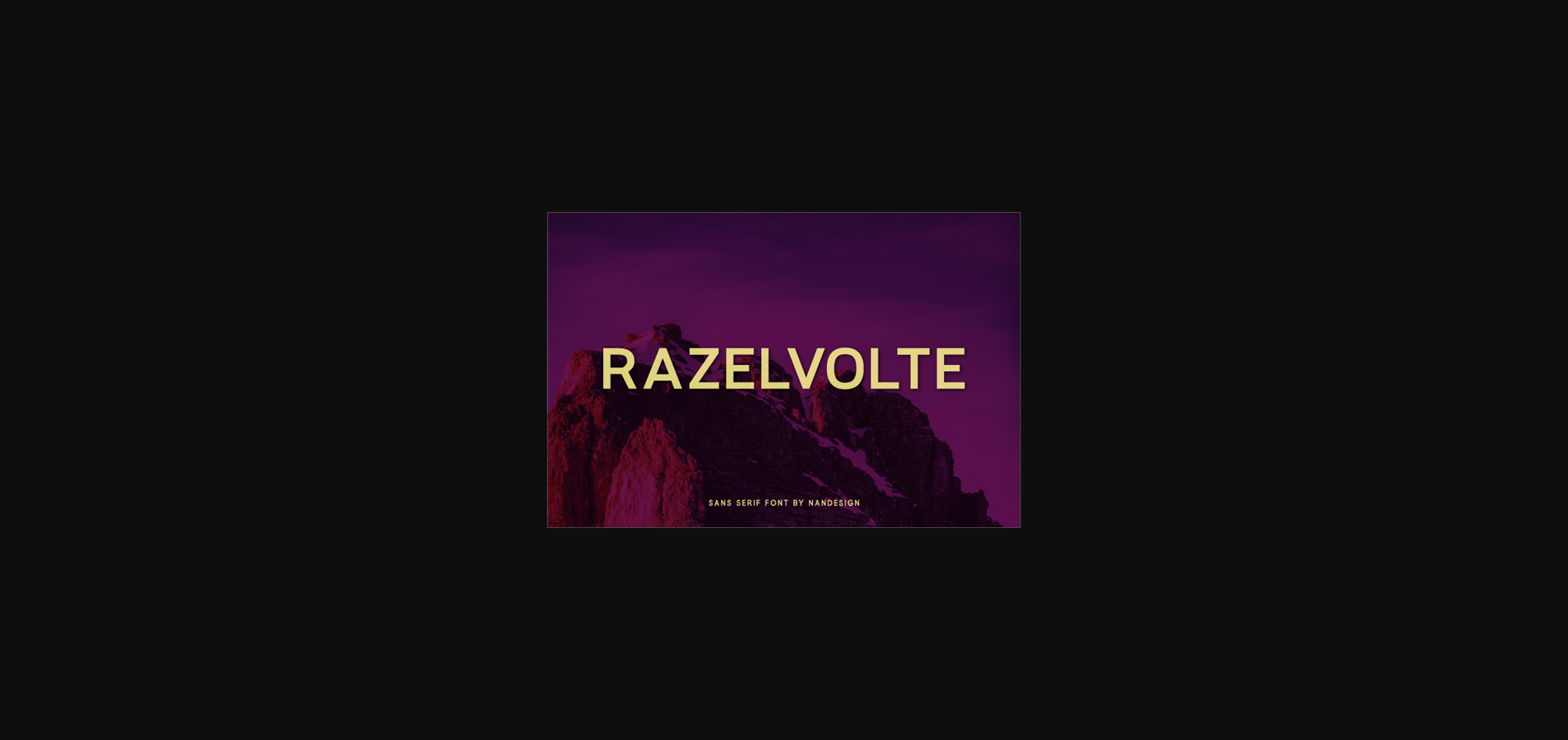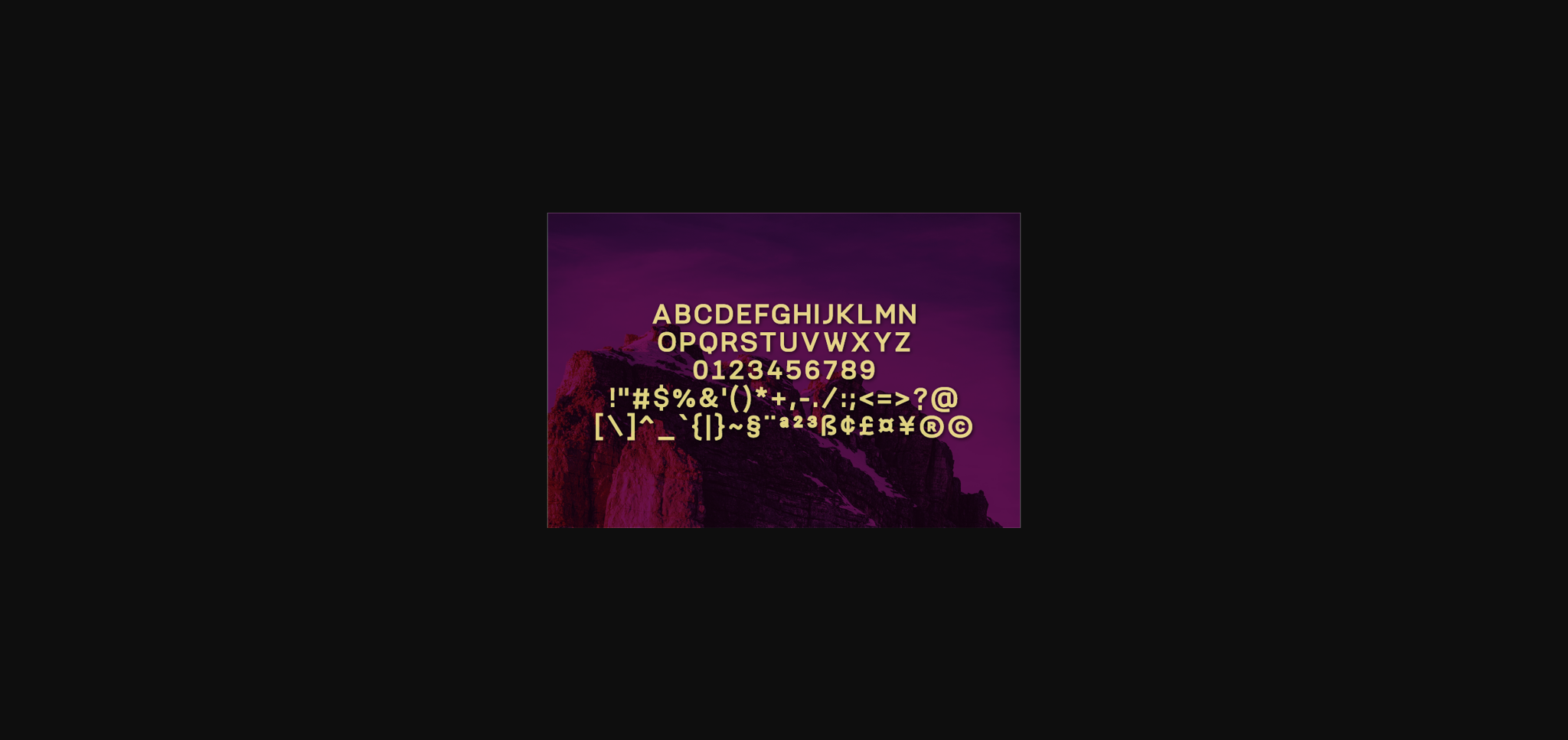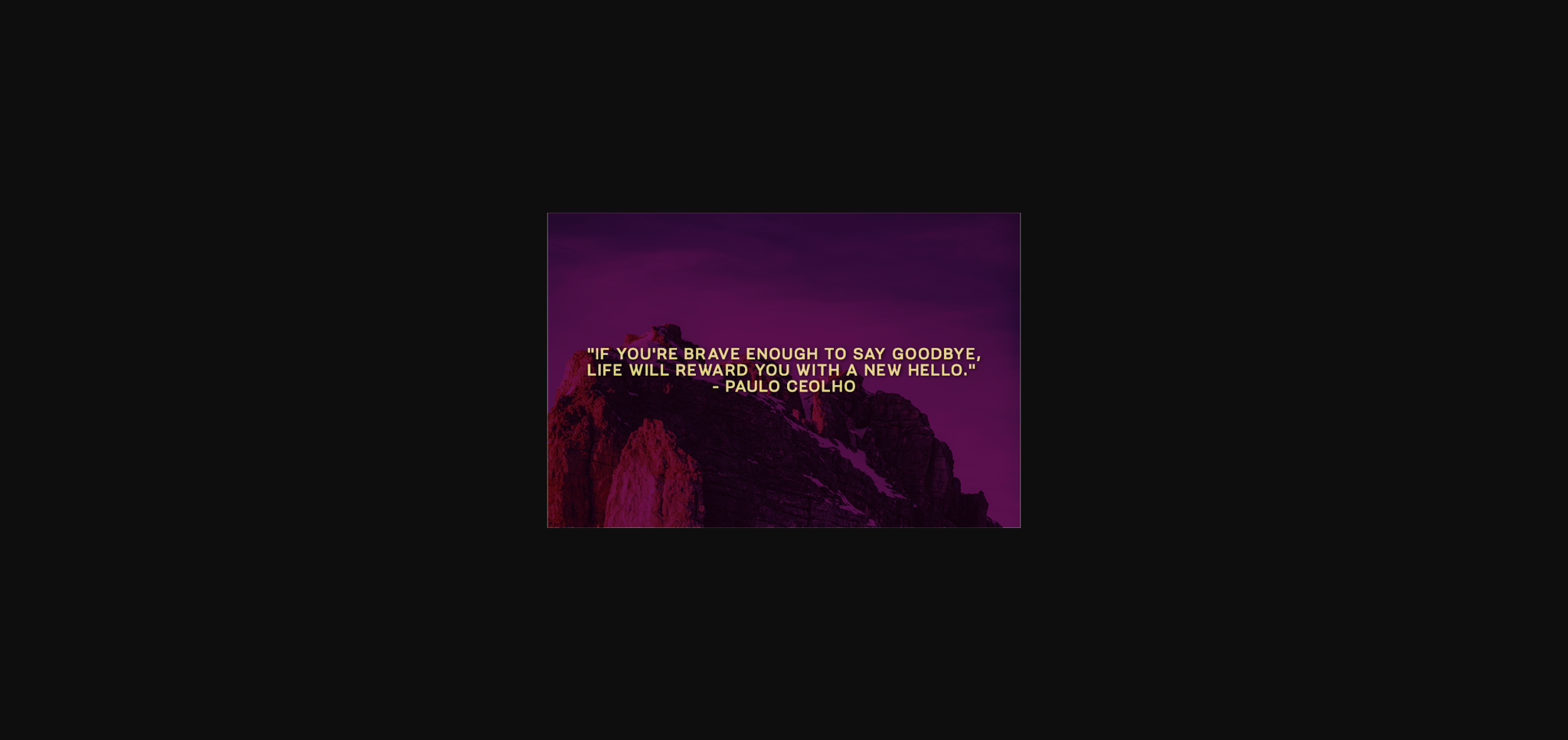
About Razelvolte Font
Razelvolte is a stunning sans serif font, designed to complement every project you’re currently working on.
It has a clean, thin and smooth vibe and it will be a hit for any design that you want to add it to.